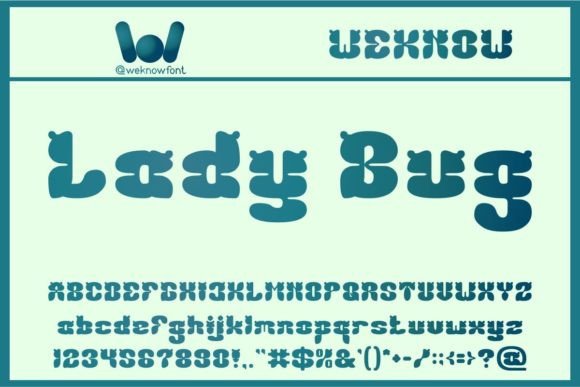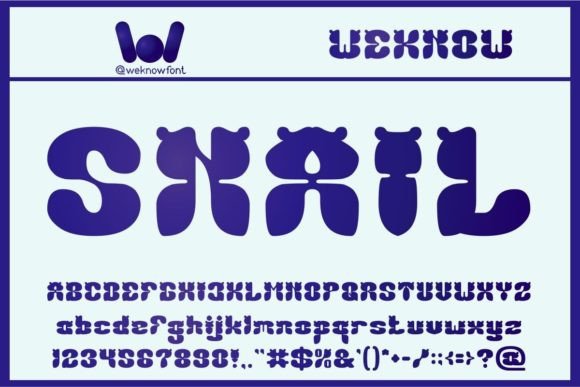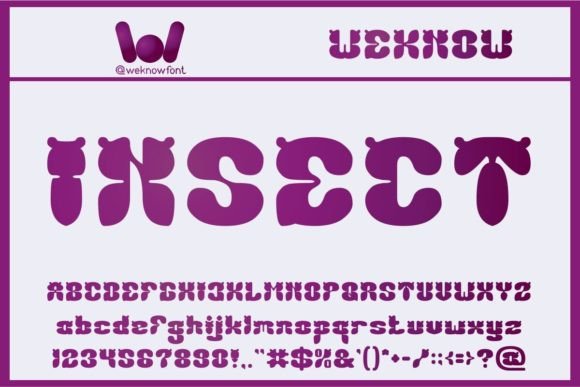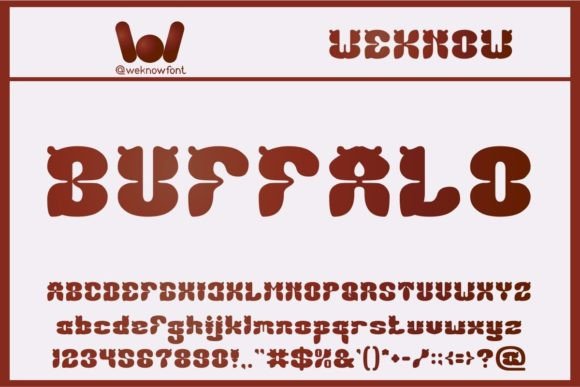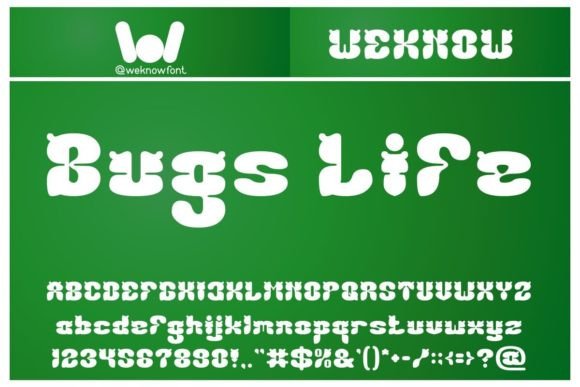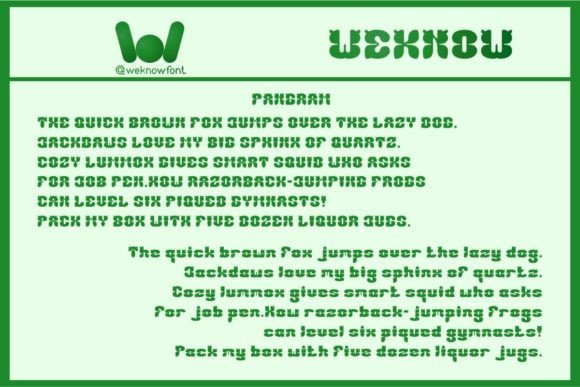
Introduction to Mantis Font
Mantis is a fancy display font suitable for a logo, logotype, headline, corporate identity, brand identity, apparel industry, poster, music, movie, game, magazine, book, comic, cartoon, YouTube, Instagram, website, or any of your creative design projects.
Key Features of Mantis Font
Why Choose Mantis Font?
Mantis Font offers exceptional quality and versatility, making it a valuable addition to your design toolkit. Whether you’re creating for personal projects or commercial use, Mantis Font delivers professional results.